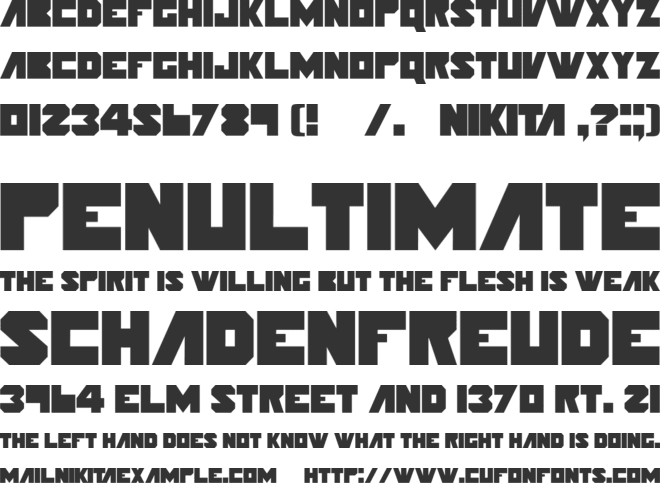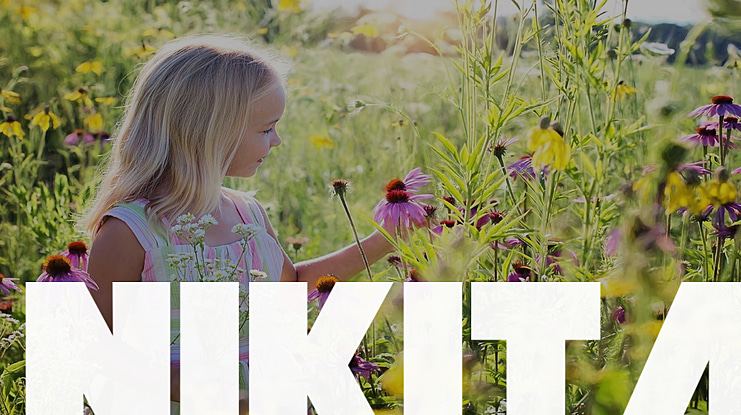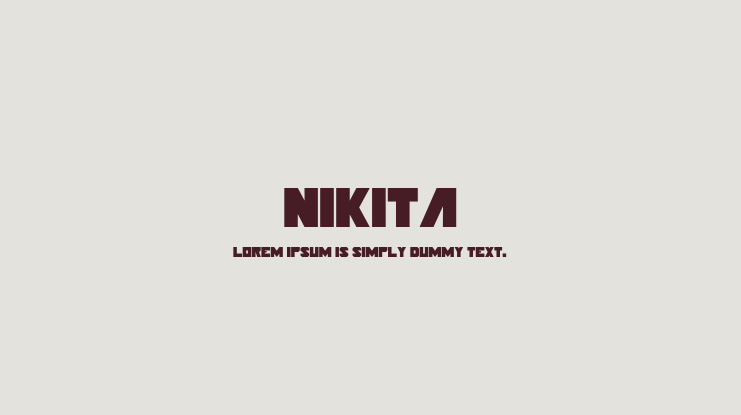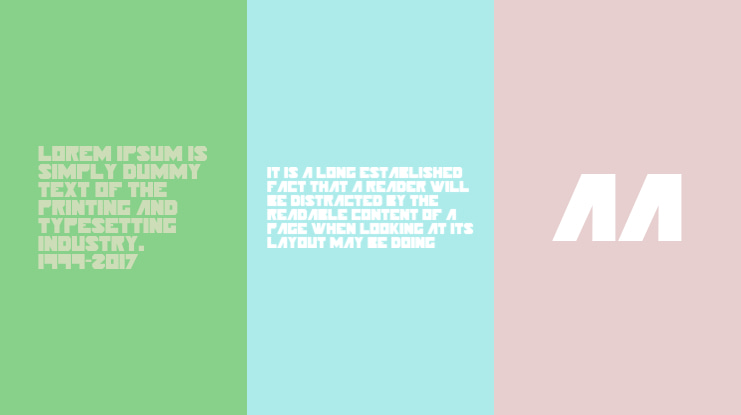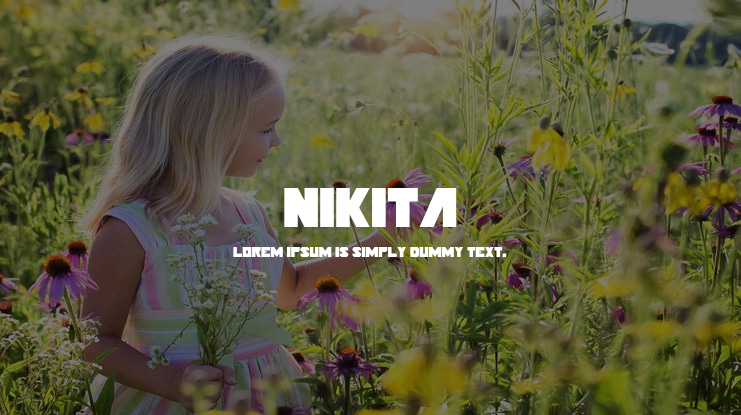
NIKITA Font
Directly from the film directed by RICHARD BENJAMIN and starring RIVER PHOENIX, the unpublished font for all admirers of the film.
Direttamente dal film diretto da RICHARD BENJAMIN e interpretato da RIVER PHOENIX, il font inedito per tutti gli estimatori del film.